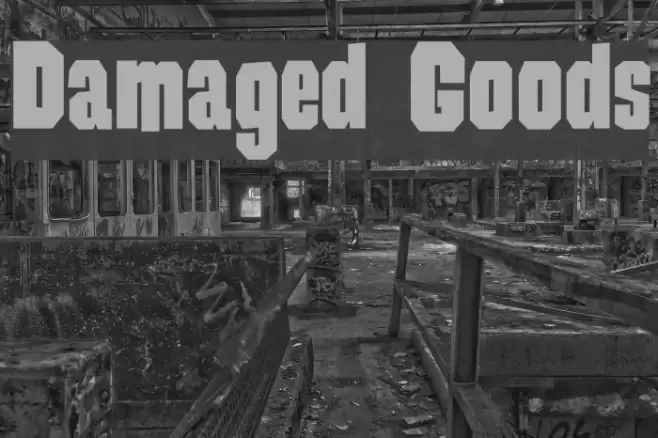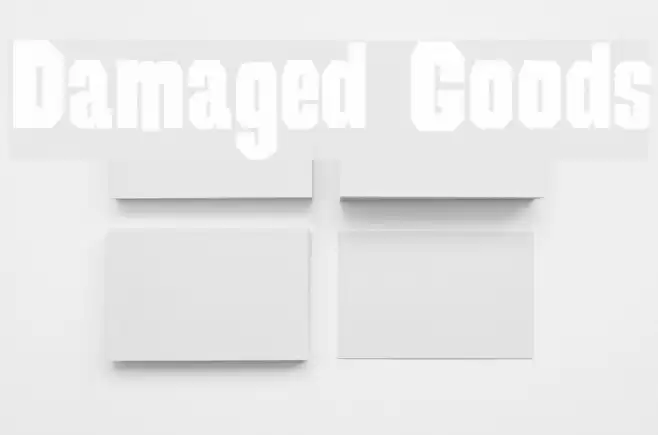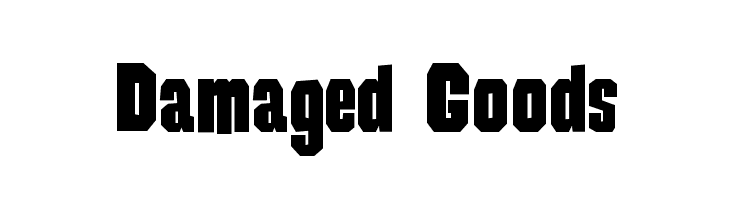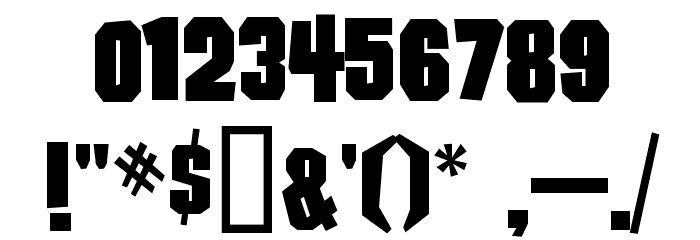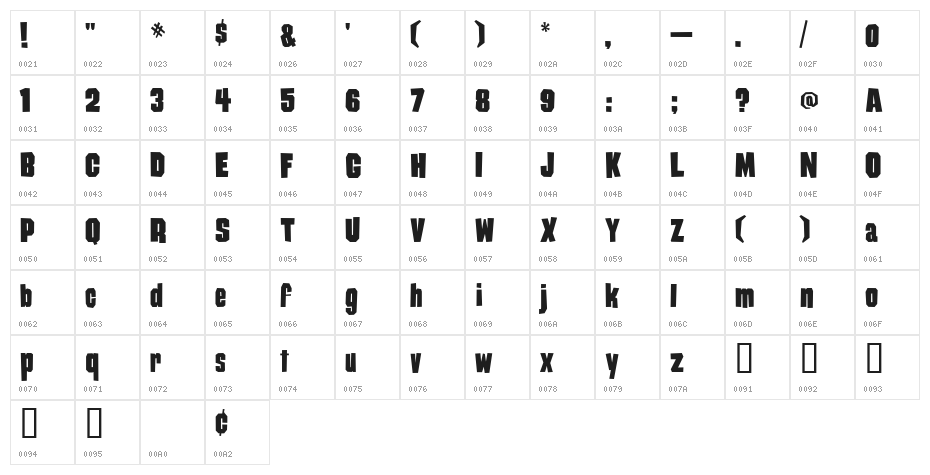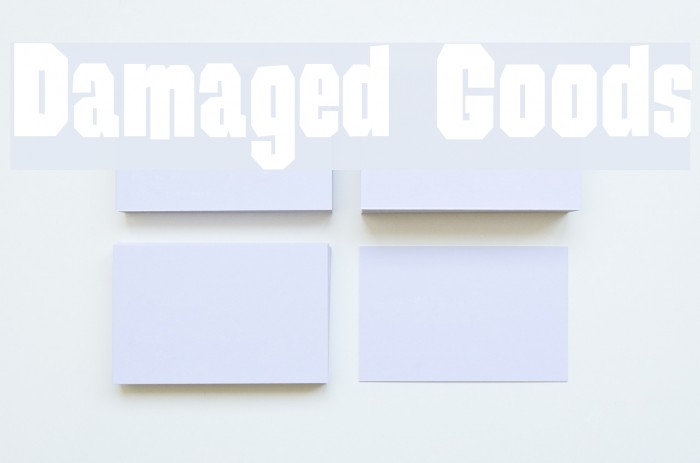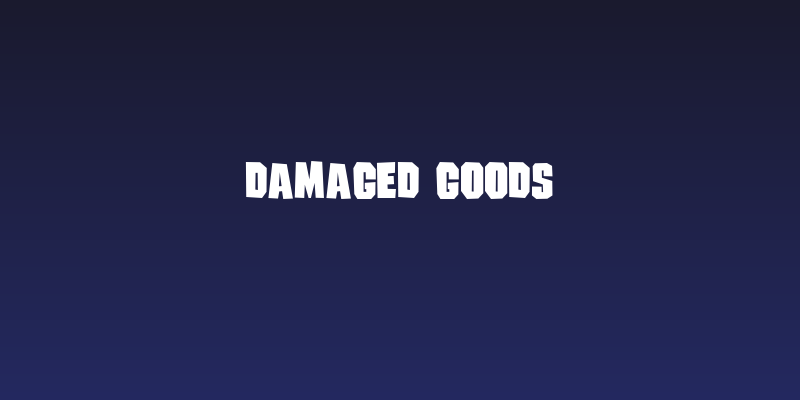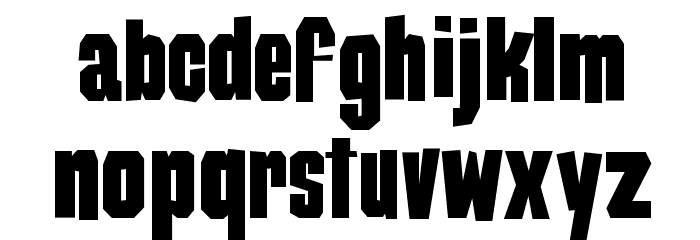
Damaged Goods Font
Damaged Goods Description
This bold, decorative font features a strong, angular design with a distinct geometric style. The uppercase and lowercase letters are characterized by sharp edges and a blocky appearance, giving it a commanding presence. The numbers and special characters maintain this bold aesthetic, ensuring consistency across all glyphs. The font's unique style makes it ideal for attention-grabbing headlines and impactful designs. Its high contrast and wide character spacing enhance readability while maintaining a striking visual appeal.
A bold, angular decorative font with a geometric style from Military fonts.
- Proposed Projects: Ideal for posters, logos, branding, and headlines that require a bold statement.
- Character Spacing: Wide
- Overall Style: Modern, Decorative